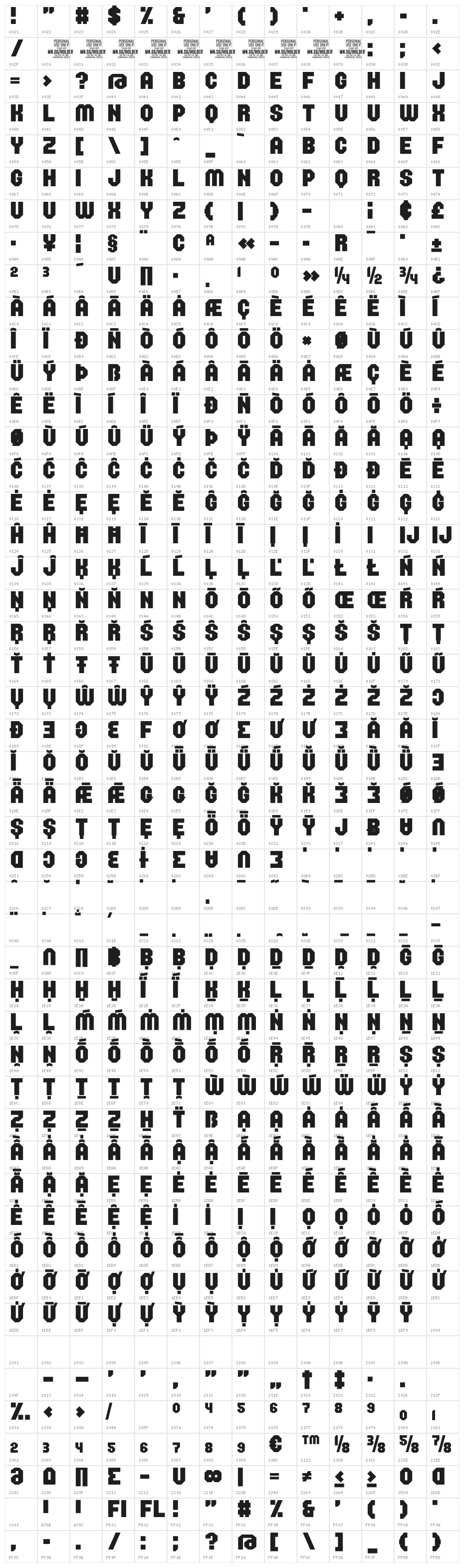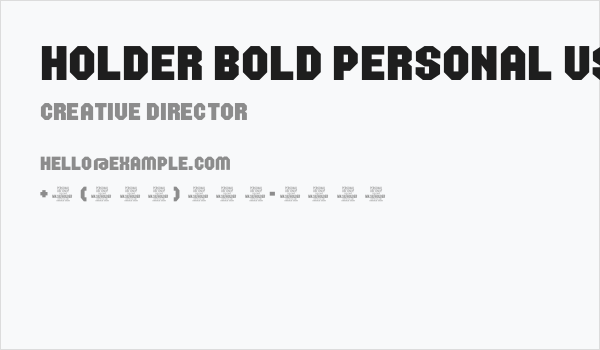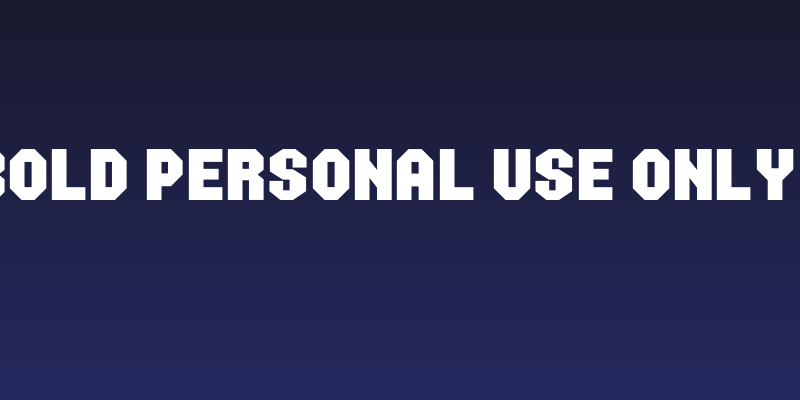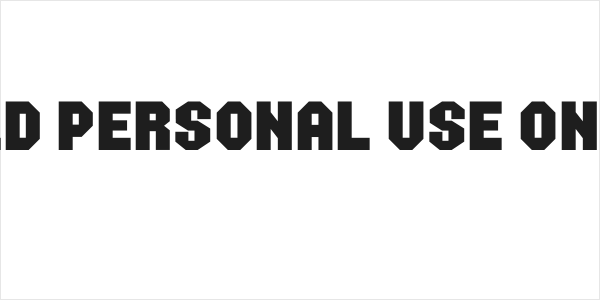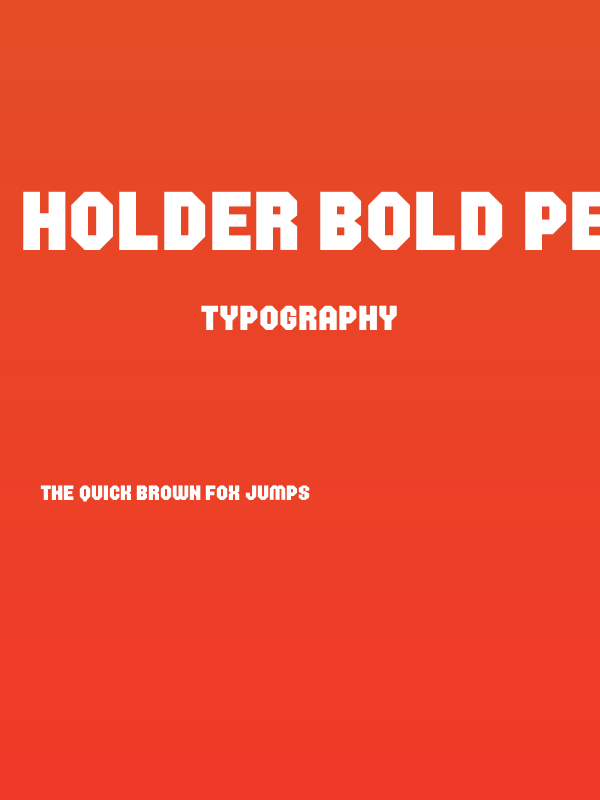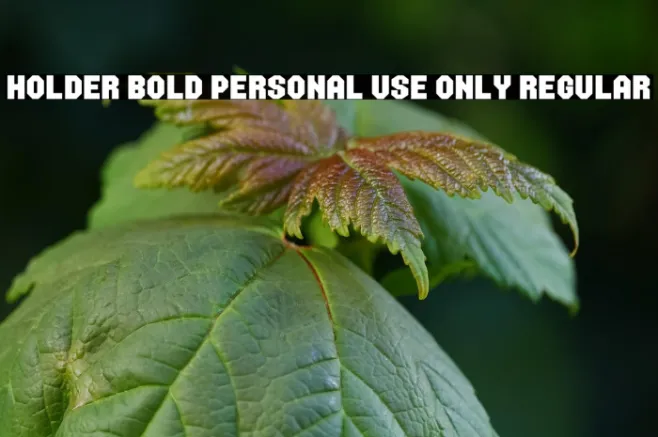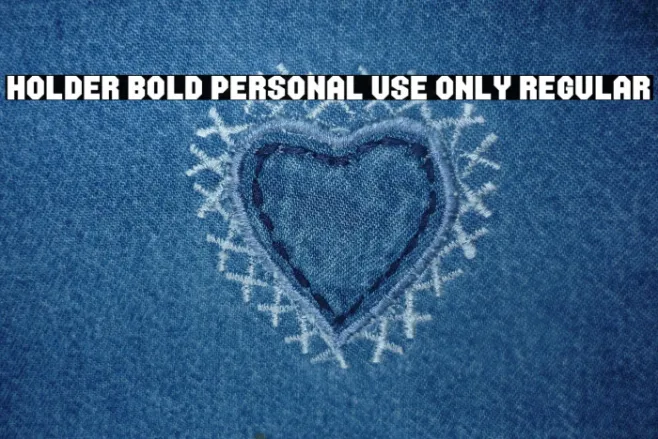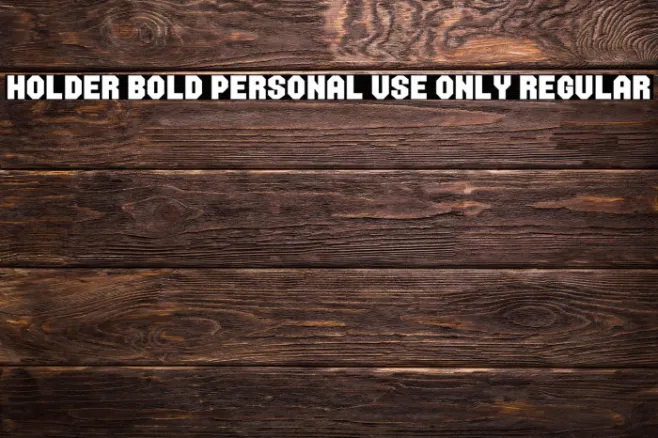
Holder Bold PERSONAL USE ONLY Regular Font
Holder Bold PERSONAL USE ONLY Regular Description
This font features a bold, geometric design with a strong presence. The characters are constructed with thick, block-like shapes that create a sense of solidity and impact. The uppercase letters are uniform in height, contributing to a cohesive and structured appearance. The angular edges and straight lines give it a modern and industrial feel, making it ideal for attention-grabbing headlines and titles. The numbers and special characters maintain the same bold and structured style, ensuring consistency across different uses.